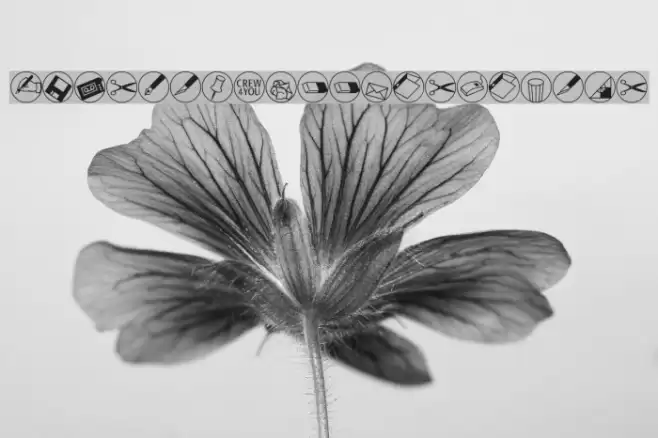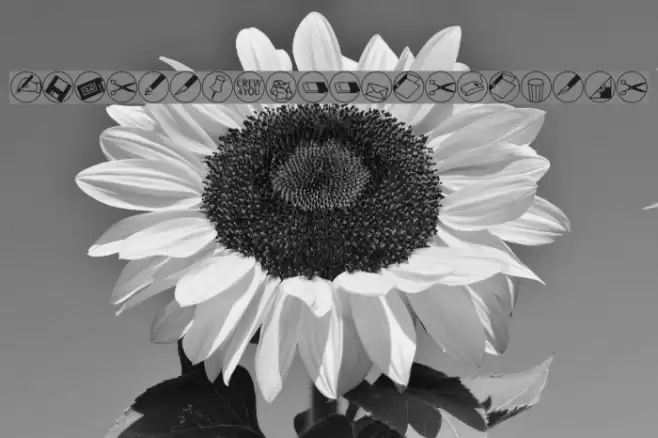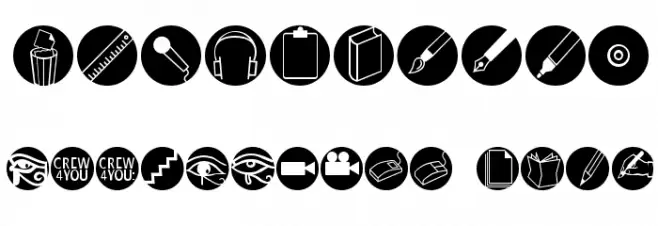
OlisWebButtonsInvers Font
OlisWebButtonsInvers Description
A collection of circular web button icons featuring office, media, and stationery symbols in both positive and inverse (filled and outline) styles. The icons are simple, bold, and highly recognizable, using strong black-and-white contrast for clarity.
Bold, circular web button icons with office and media themes from Uncategorized fonts.
- Proposed Projects: Web interfaces, app toolbars, educational materials, digital dashboards, intranet navigation.
- Overall Style: Modern, Decorative
- Use Case: Icons, Buttons, UI elements